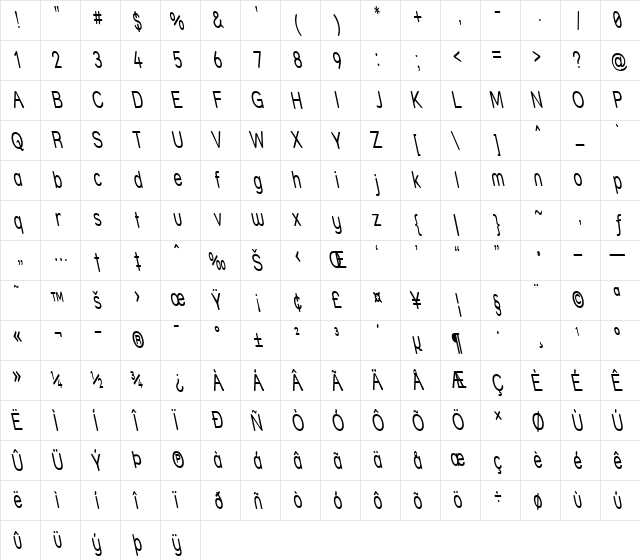
Street - Thin Reverse Italic
| Designer | Graham Meade |
Design Context for Street - Thin Reverse Typeface
Street - Thin Reverse is a composed and adaptable typeface that performs quietly and consistently across a wide range of design contexts. Its italic angle brings a sense of urgency and motion to the letterforms. The delicate stroke weight brings airiness and refinement to layouts.